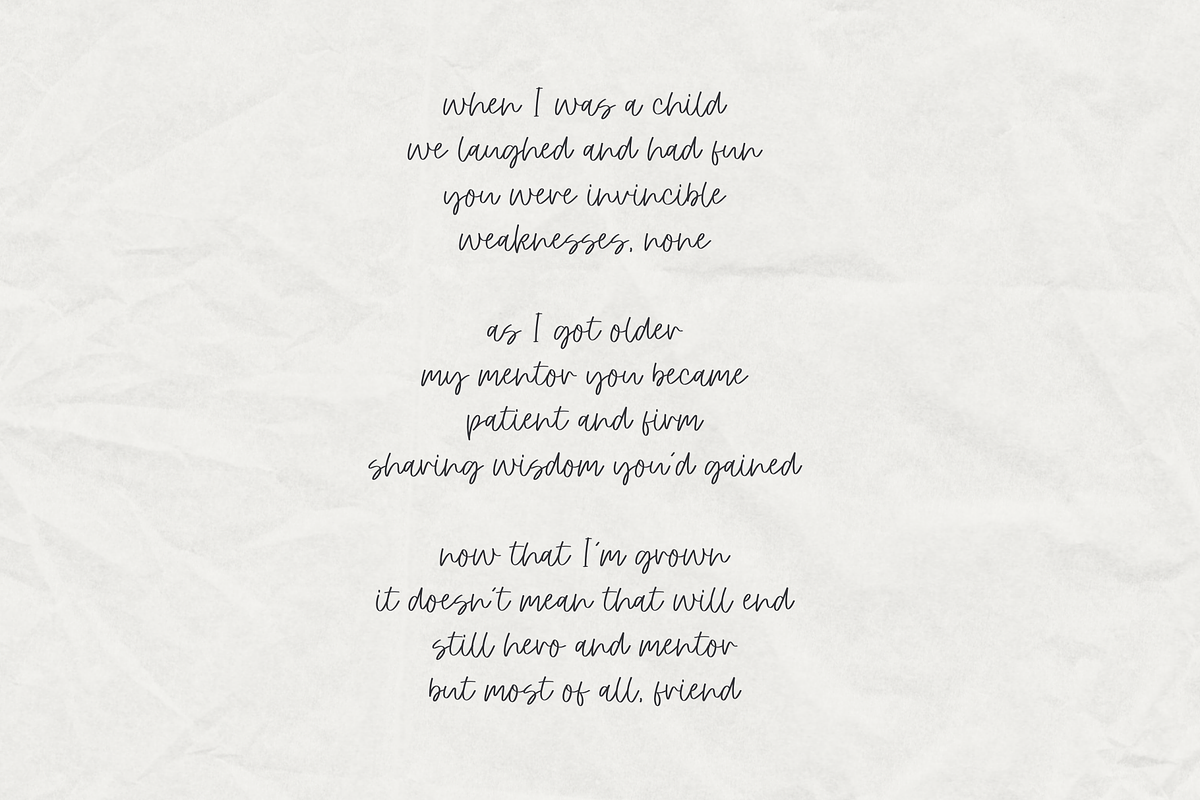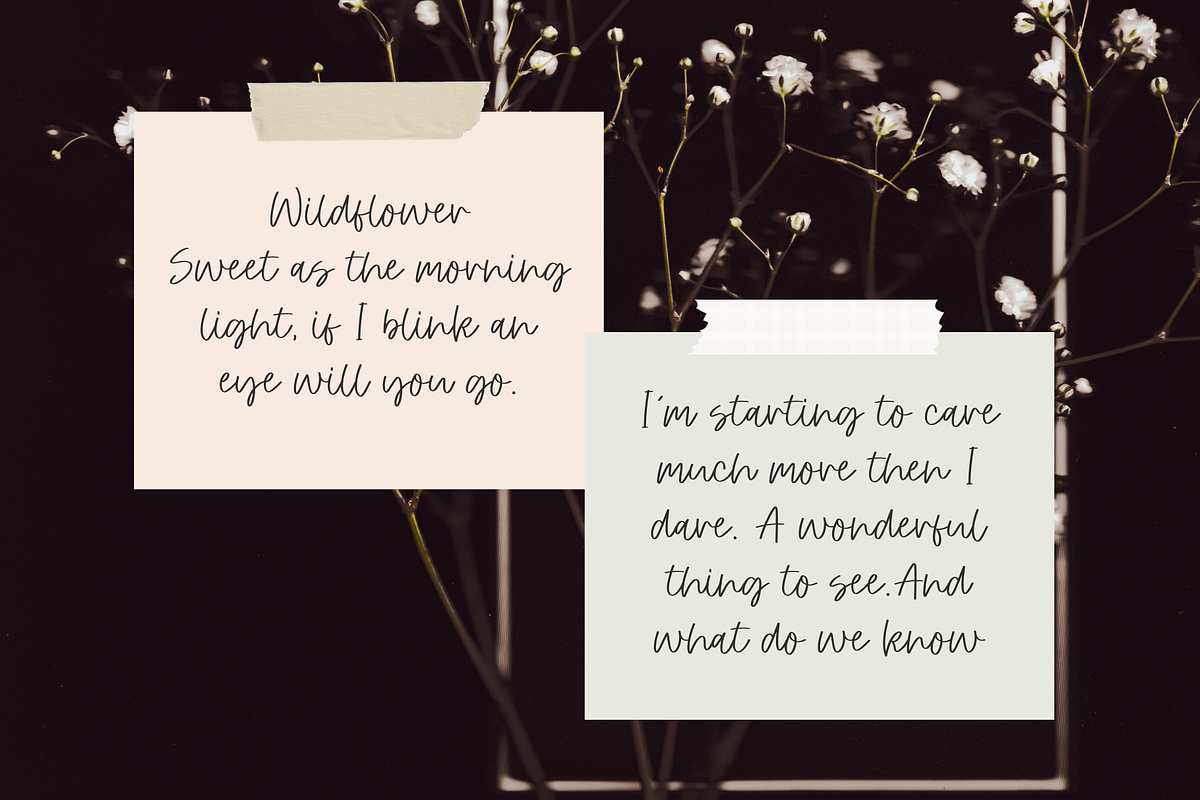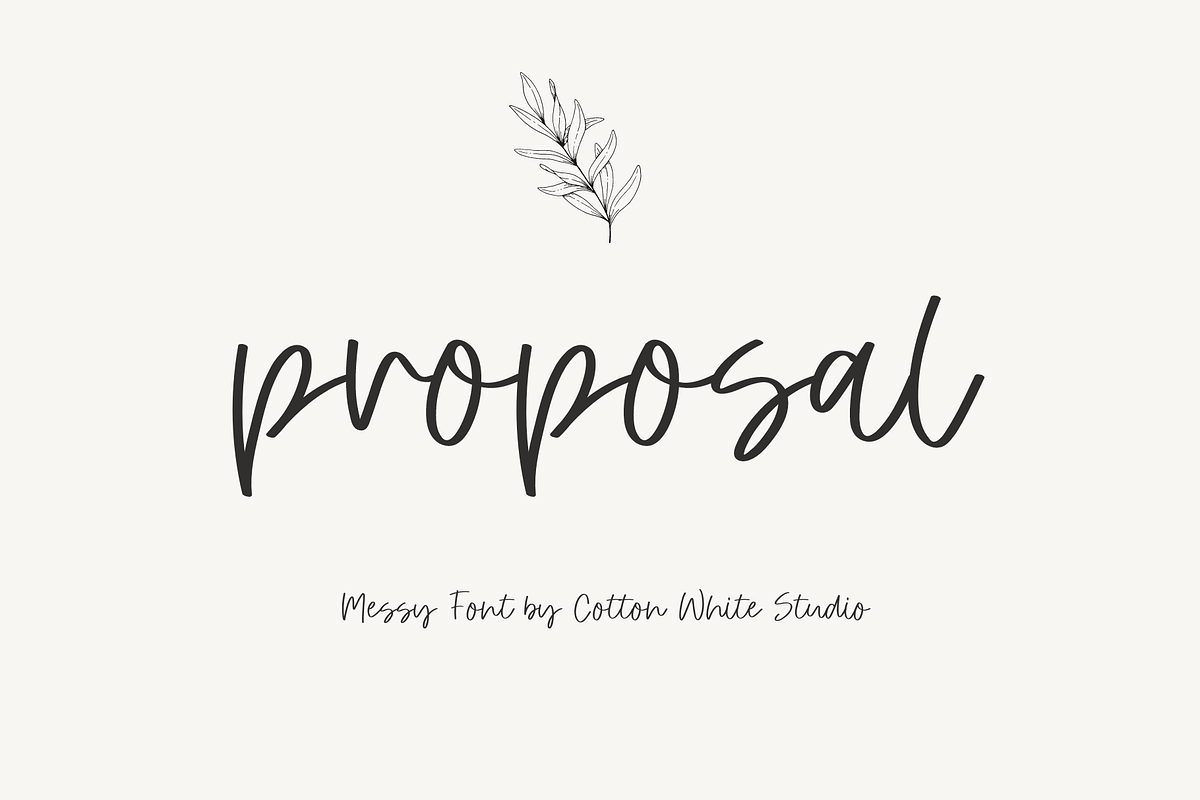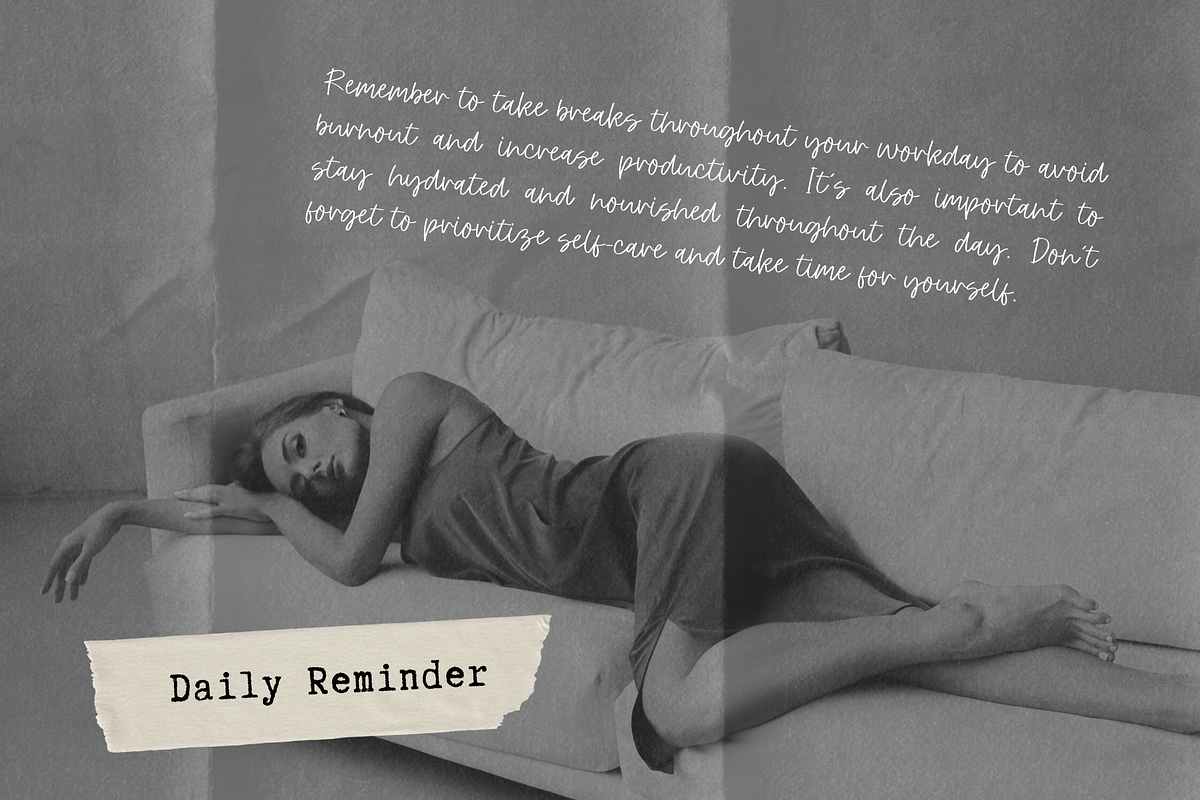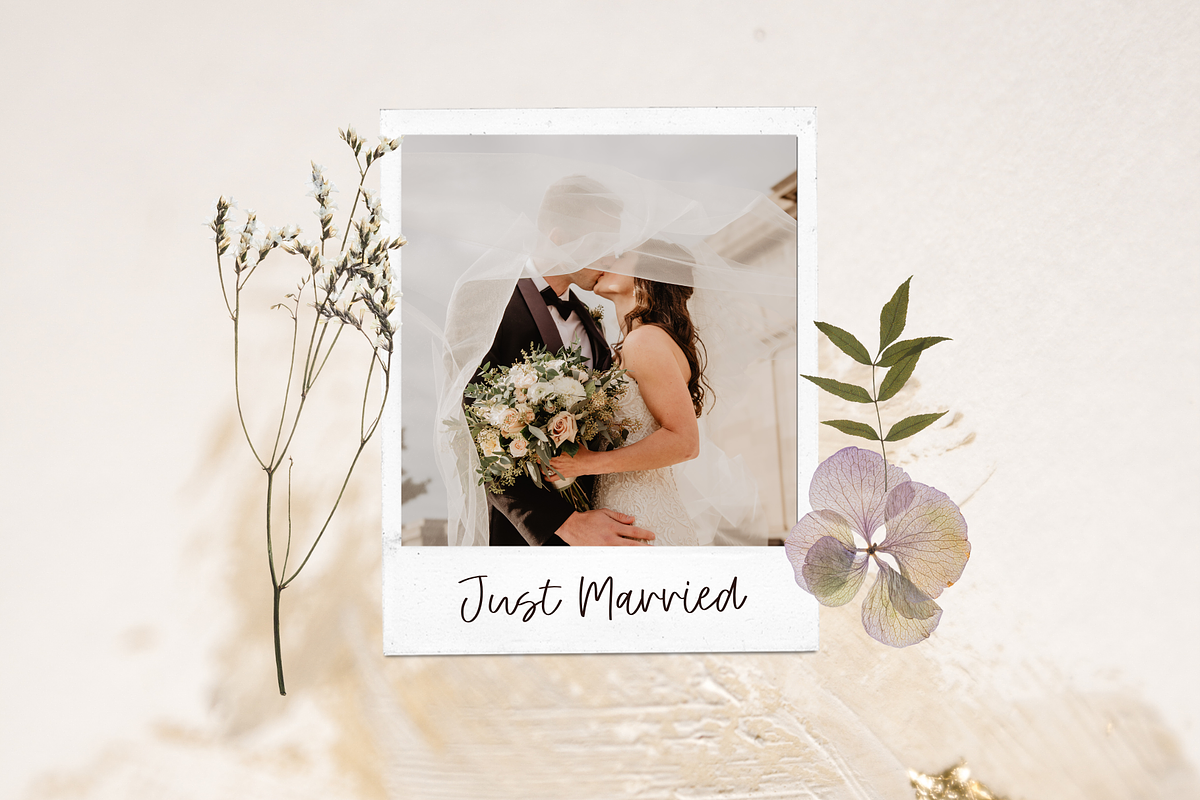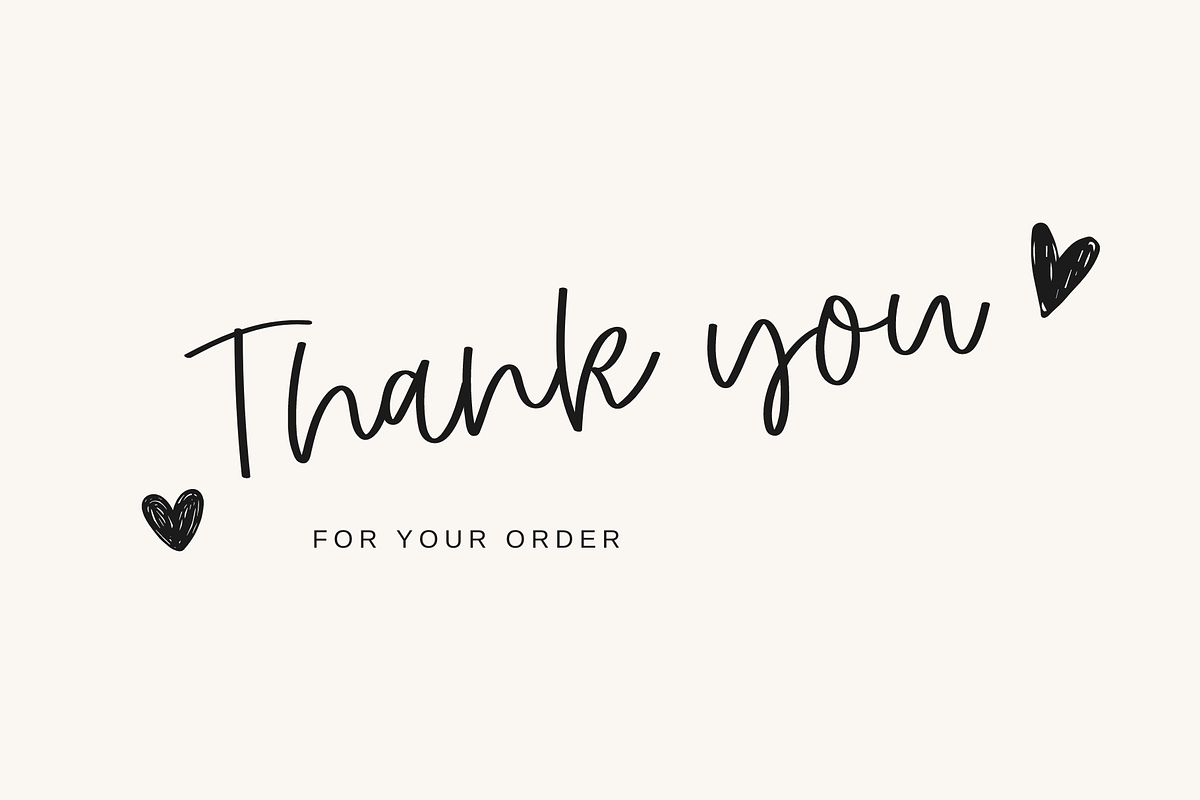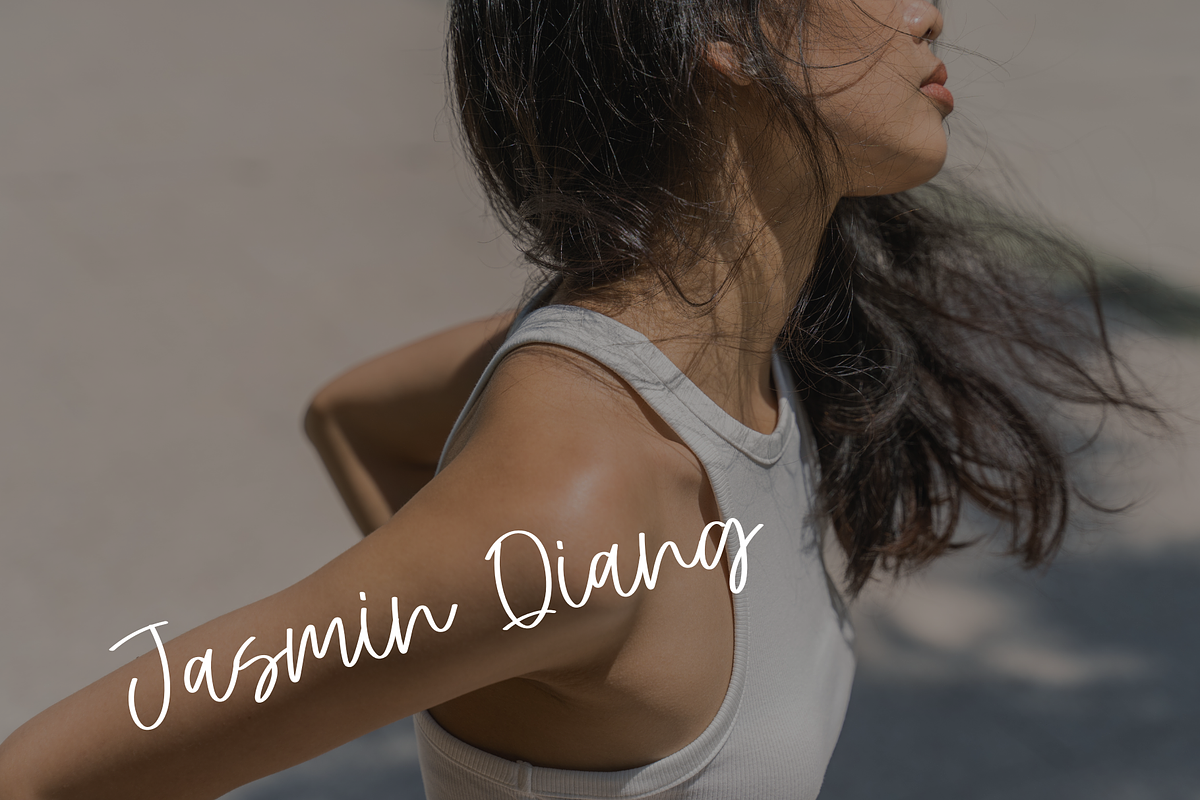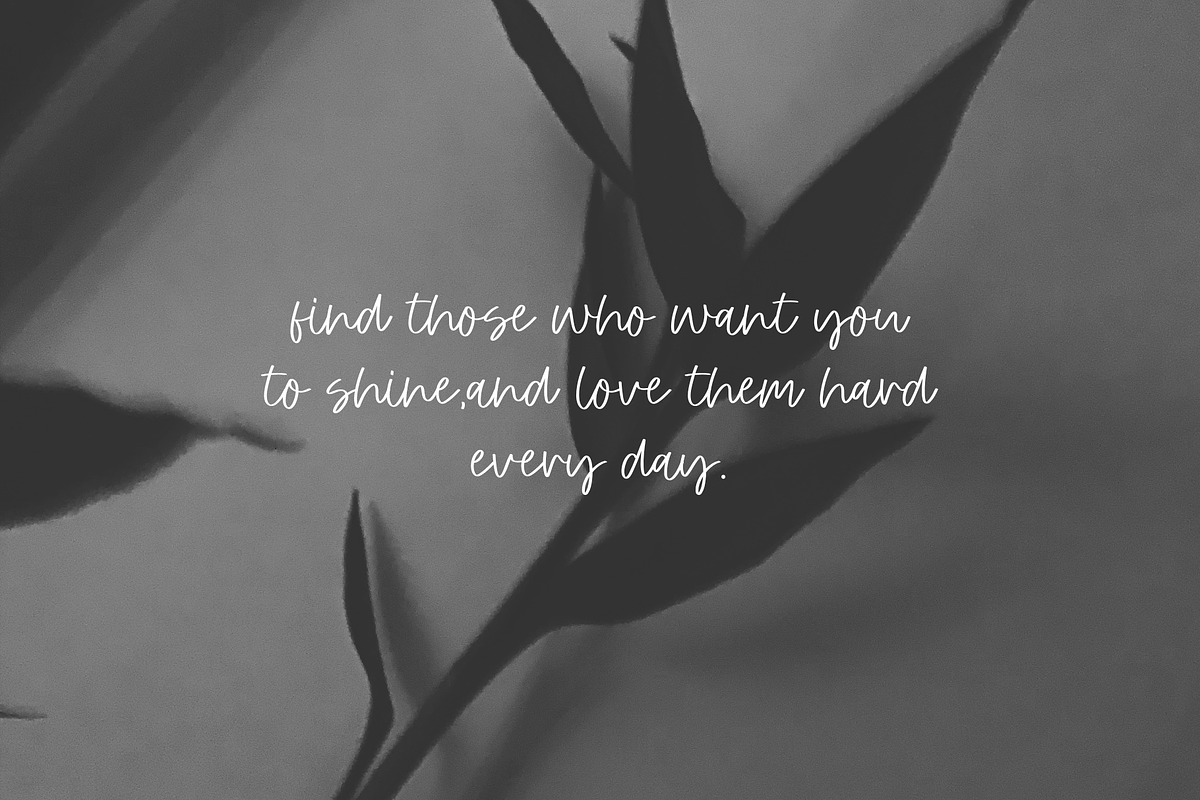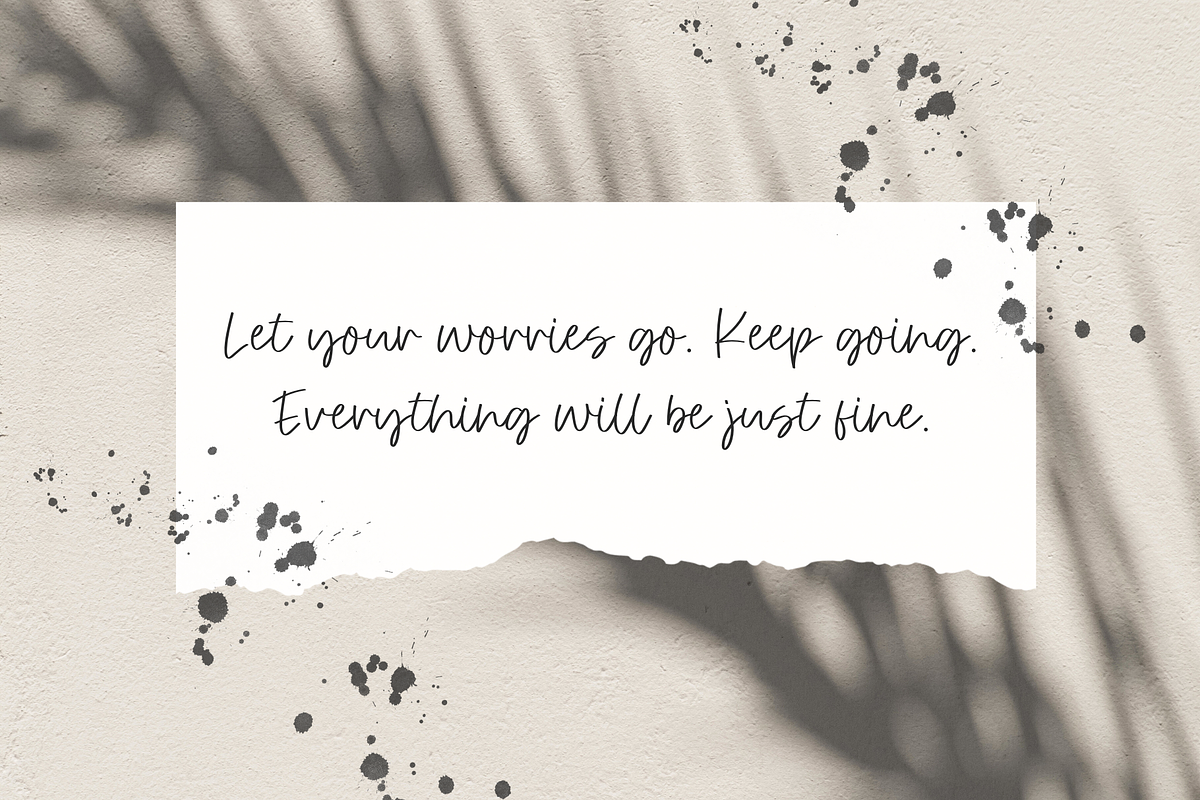
Proposal
Enhance your projects with a beautifully crafted appearance using this wonderfully scripted font! This elegant hand-drawn font will bring a distinctive flair, ideal for branding, invitations, blogs, and planners. Easily incorporate an authentic hand-lettered feel into your work!